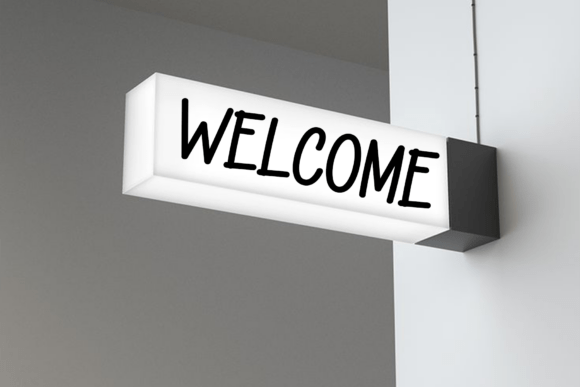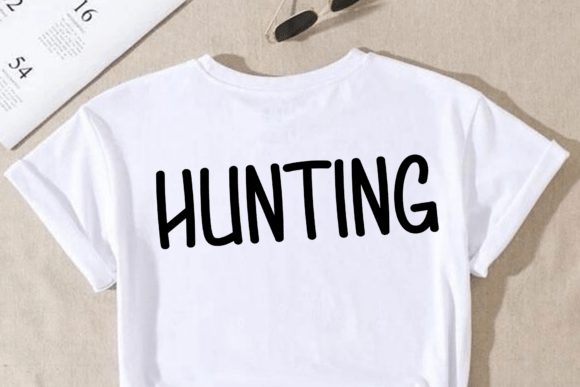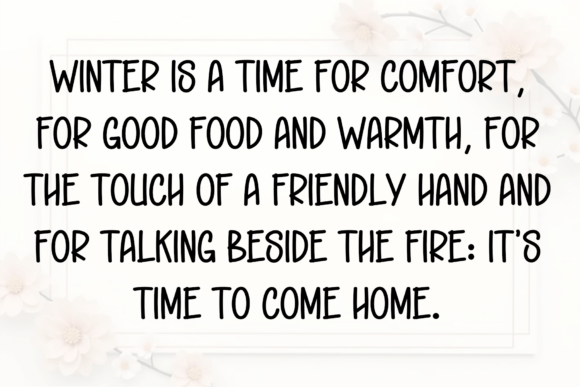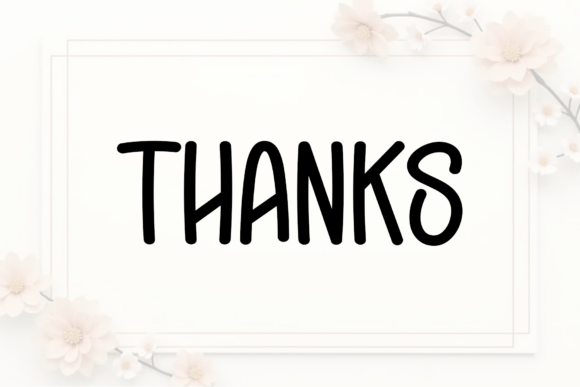
Introducing Good Feeling Font: The Perfect Choice for Friendly and Approachable Designs
Are you looking for a font that can add a touch of warmth and personality to your designs? Look no further than Good Feeling Font! This charming font is designed to bring a sense of friendliness and approachability to any project, making it perfect for designers and crafters who want to create a lasting impression.
What Makes Good Feeling Font So Special?
Good Feeling Font is a tall, friendly font with a charmingly uneven, monoline weight. Its slightly condensed and clean vertical structure gives it a straightforward, yet approachable, personality. This unique combination of characteristics makes it an ideal choice for a wide range of design projects, from children’s books and custom stationery to positive social media quotes and casual branding.
The Perfect Font for Children’s Books
When it comes to designing children’s books, the font you choose can make all the difference. Good Feeling Font is a perfect choice for kids’ books because of its playful and unique personality. The font’s friendly and approachable style will help bring your story to life and engage young readers. Whether you’re creating a picture book, early reader, or chapter book, Good Feeling Font is sure to delight.
Adding a Personal Touch to Custom Stationery
Custom stationery is a great way to add a personal touch to your correspondence, and Good Feeling Font is the perfect choice for creating unique and eye-catching designs. The font’s charmingly uneven, monoline weight gives it a handmade feel that’s perfect for letters, cards, and other paper goods. Whether you’re creating stationery for personal use or as a gift, Good Feeling Font is sure to make your designs stand out.
Spreading Positivity on Social Media
In today’s digital age, social media is a powerful tool for spreading positivity and inspiration. Good Feeling Font is a great choice for creating engaging and uplifting social media quotes. The font’s clean and straightforward style makes it easy to read, while its friendly and approachable personality helps to convey a sense of warmth and approachability. Whether you’re creating graphics for Instagram, Facebook, or Twitter, Good Feeling Font is sure to help you spread a little joy.
Casual Branding and Beyond
Good Feeling Font is more than just a font – it’s a design solution. Its playful and unique personality makes it perfect for casual branding projects, such as logos, business cards, and packaging. The font’s strong, clear, and genuinely cheerful style helps to create a lasting impression and sets your brand apart from the competition.
Key Features of Good Feeling Font
- Tall, friendly font with a charmingly uneven, monoline weight
- Slightly condensed and clean vertical structure
- Playful and unique personality
- Ideal for children’s books, custom stationery, positive social media quotes, and casual branding
- Strong, clear, and genuinely cheerful handwritten style
Why Choose Good Feeling Font?
When it comes to choosing a font for your design project, there are many options to consider. But Good Feeling Font stands out from the crowd for several reasons:
- Unique Personality: Good Feeling Font has a playful and unique personality that’s sure to engage and delight your audience.
- Versatility: The font is versatile and can be used for a wide range of design projects, from children’s books to casual branding.
- Easy to Read: The font’s clean and straightforward style makes it easy to read, even at small sizes.
- High-Quality Design: Good Feeling Font is designed to high standards, ensuring that your designs look professional and polished.
Good Feeling Font is a fantastic choice for designers and crafters who want to add a touch of warmth and personality to their designs. Its playful and unique personality, combined with its versatility and ease of use, make it an ideal choice for a wide range of design projects. Whether you’re creating children’s books, custom stationery, or social media graphics, Good Feeling Font is sure to help you create designs that are engaging, uplifting, and genuinely cheerful.